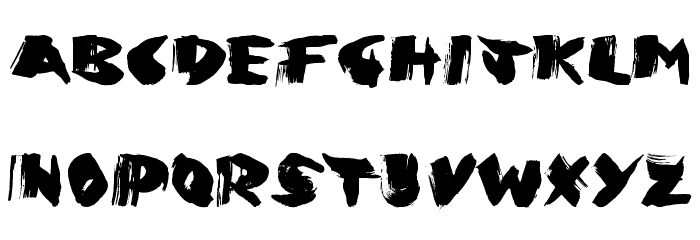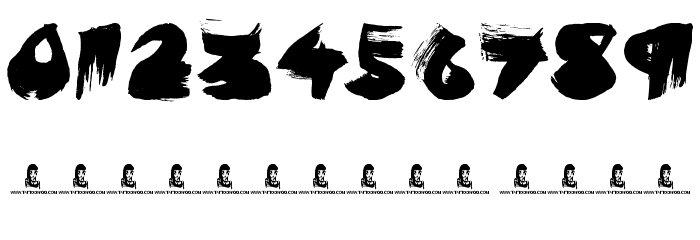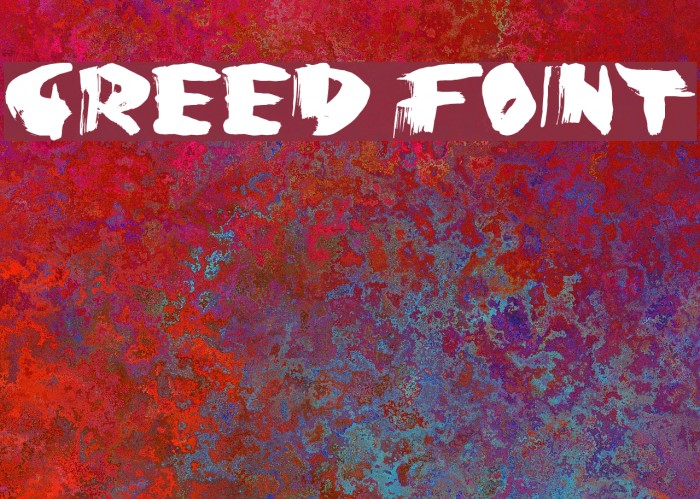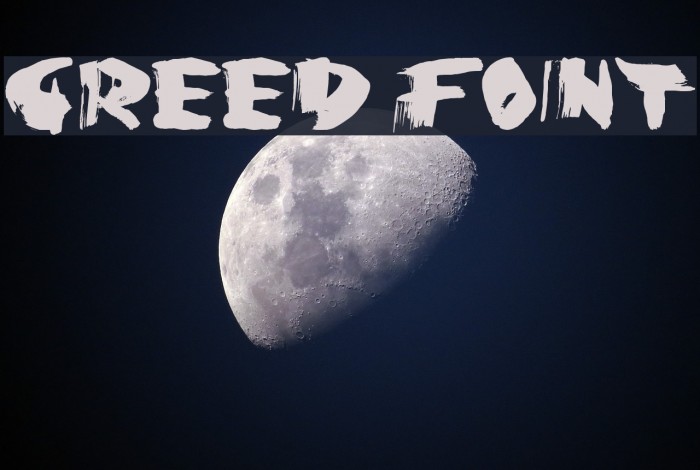
Greed Font
This font features a bold, expressive style with a brush-like texture that gives it a dynamic and artistic appearance. The strokes are uneven, adding a sense of movement and energy to the characters. The uppercase and lowercase letters maintain a consistent style, with each character exhibiting unique brush strokes that vary in thickness. The numbers and special characters follow the same design principles, ensuring a cohesive look across all elements. This font is ideal for projects that require a strong visual impact and a creative flair.
A bold, brush-style font with dynamic and artistic strokes.
- Proposed Projects: Ideal for posters, album covers, branding, and artistic projects that require a bold and expressive typeface.
- Overall Style: Modern, Artistic